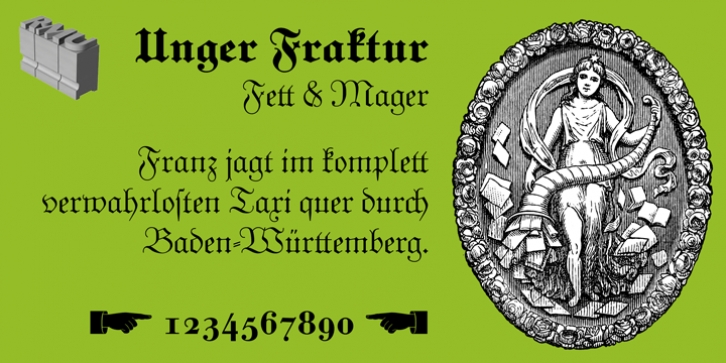
In the wake of the Enlightenment and the French Revolution there was a desire for a clear classical blackletter font without frills. That is why in 1793 the famous printer and editor Johann Friedrich Unger and his partner Johann Christian Gubitz accomplished their own fraktur.
Now you will be able to use both regular and bold styles of this highly readable blackletter font. These fonts contain many useful ligatures, and by typing ‘N’, ‘r’ and period you get an oldstyle numbersign.